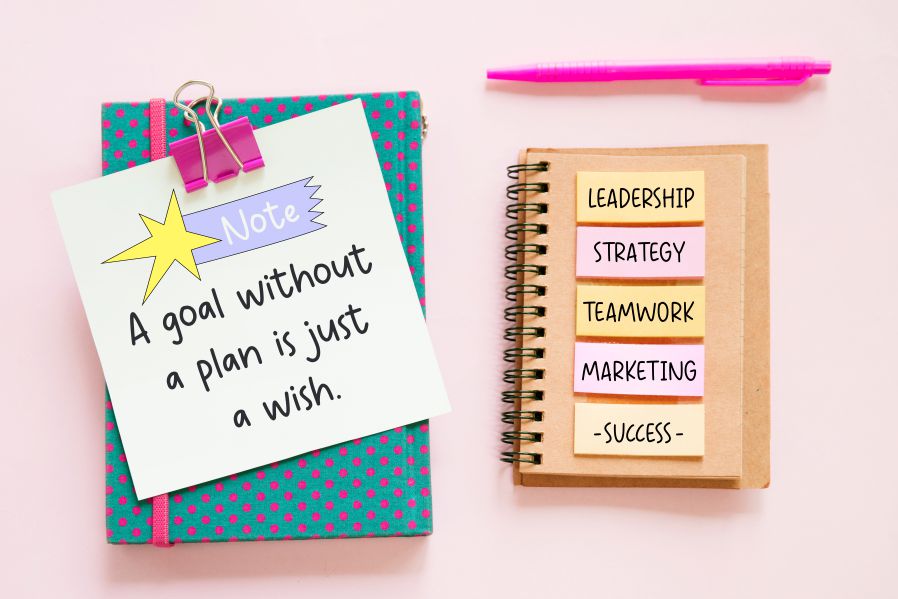
Perospero Font
Perospero Display Font
This is a Fun Handwritten Font. Perospero is perfect for product packaging, branding project, megazine, social media, wedding, or just used to express words above the background.